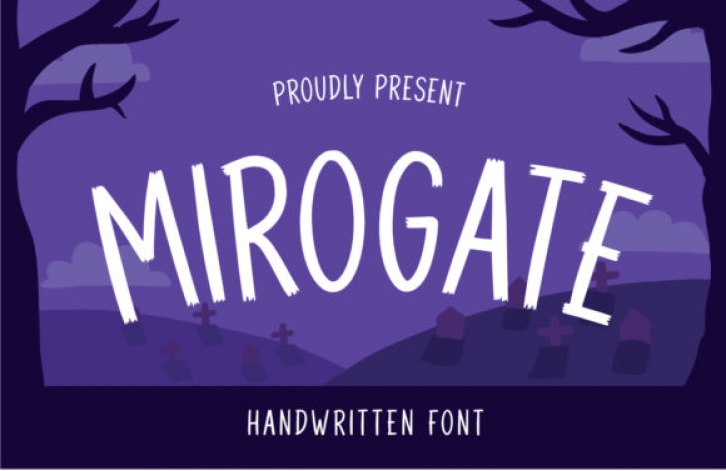
Mirogate is a simple and neat lettered display font. This font is Halloween themed. perfect for your Halloween projects. Add this font to your creative ideas and notice how it will make them stand out!